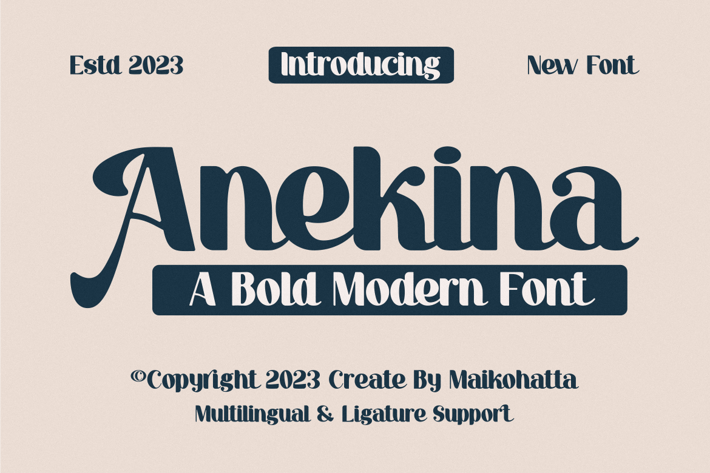
Anekina - Bold Modern Font
Introducing our new product Anekina Bold Modern Font
Anekina Bold Modern Font is a bold and authentic display font. The font is suitable for any branding project like logo, Template Design, esport, and many more. outstanding in a wide range of contexts.